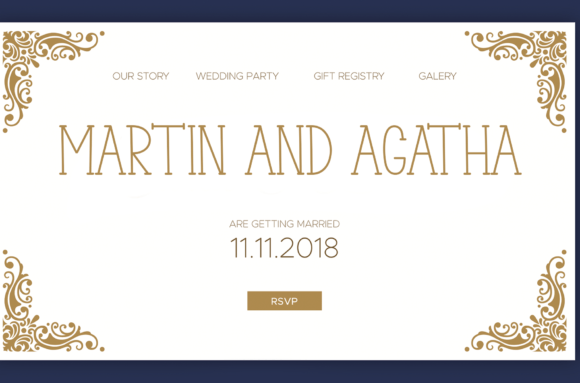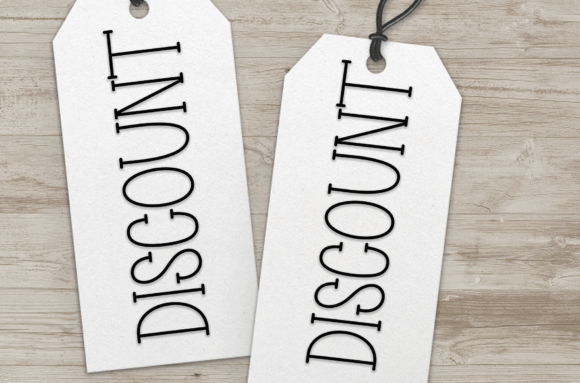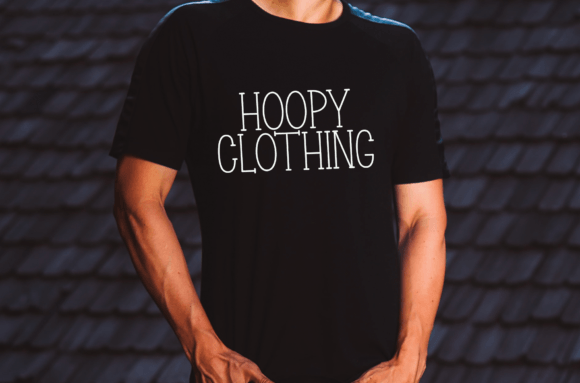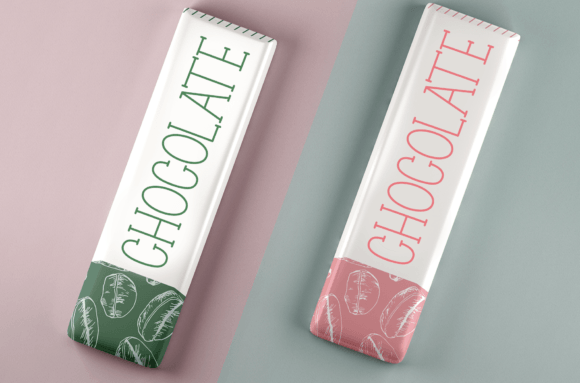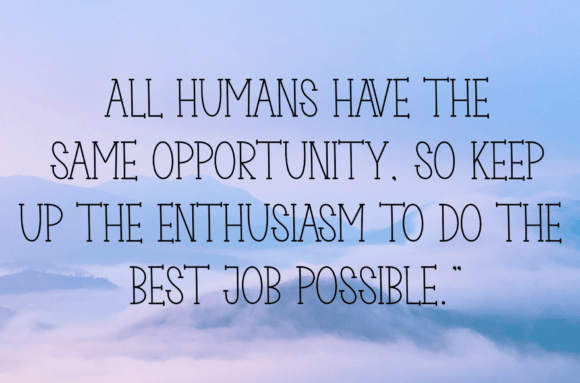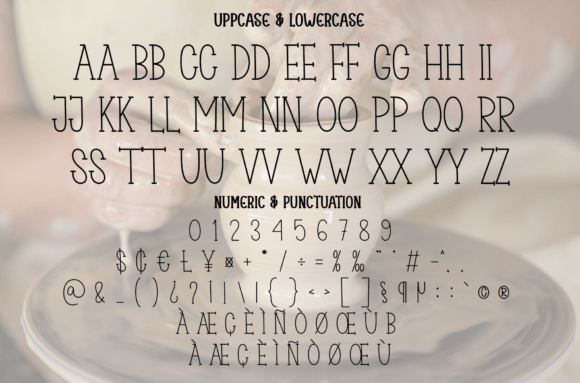
Create Font: Add a Sweet and Friendly Touch to Your Designs
Are you looking for a font that can add a personal and playful touch to your designs? Look no further than Create Font! This sweet and friendly handwritten font is perfect for creating beautiful wedding invitations, cards, and other designs that require a fun and approachable vibe.
What Makes Create Font Special?
Create Font is a fresh and neat handwritten font that is ideal for designers and crafters who want to add a touch of personality to their work. Its sweet and friendly style makes it perfect for a variety of design projects, from wedding invitations and cards to posters and social media graphics.
One of the best things about Create Font is its versatility. It can be used for both personal and commercial projects, and it’s easy to read and understand. Whether you’re creating a design for a client or for your own personal use, Create Font is a great choice.
Characteristics of Create Font
Create Font has several characteristics that make it stand out from other fonts. Here are a few:
- Sweet and Friendly Style: Create Font has a sweet and friendly style that is perfect for designs that require a personal touch.
- Handwritten Look: Create Font has a handwritten look that gives it a personal and approachable feel.
- Fresh and Neat: Create Font is fresh and neat, making it easy to read and understand.
- Versatile: Create Font can be used for a variety of design projects, from wedding invitations and cards to posters and social media graphics.
Uses of Create Font
Create Font is a versatile font that can be used for a variety of design projects. Here are a few ideas:
- Wedding Invitations: Create Font is perfect for creating beautiful wedding invitations that set the tone for a special day.
- Cards: Create Font is great for creating cards for birthdays, holidays, and other special occasions.
- Posters: Create Font can be used to create eye-catching posters for events, promotions, and other marketing campaigns.
- Social Media Graphics: Create Font is perfect for creating social media graphics that require a personal and approachable touch.
Tips for Using Create Font
Here are a few tips for using Create Font:
- Use it for Headings and Titles: Create Font is perfect for headings and titles, where you want to make a statement and add a personal touch.
- Pair it with Other Fonts: Create Font can be paired with other fonts to create a unique and interesting design.
- Experiment with Colors: Create Font looks great in a variety of colors, so don’t be afraid to experiment and find the perfect color for your design.
Create Font is a sweet and friendly handwritten font that is perfect for designers and crafters who want to add a personal touch to their work. Its versatility, fresh and neat style, and handwritten look make it ideal for a variety of design projects, from wedding invitations and cards to posters and social media graphics.
Whether you’re a professional designer or a crafter, Create Font is a great choice for your next design project. So why not give it a try and see how it can add a sweet and friendly touch to your designs?